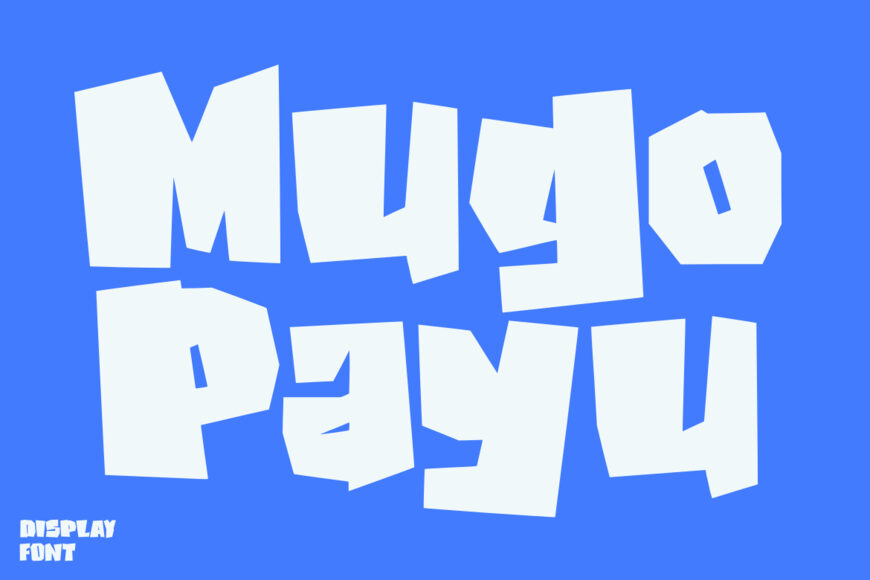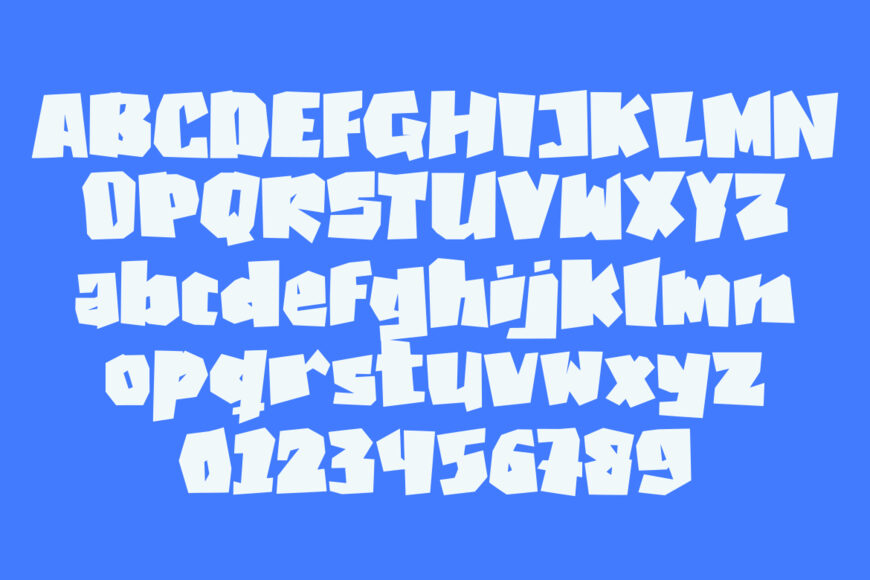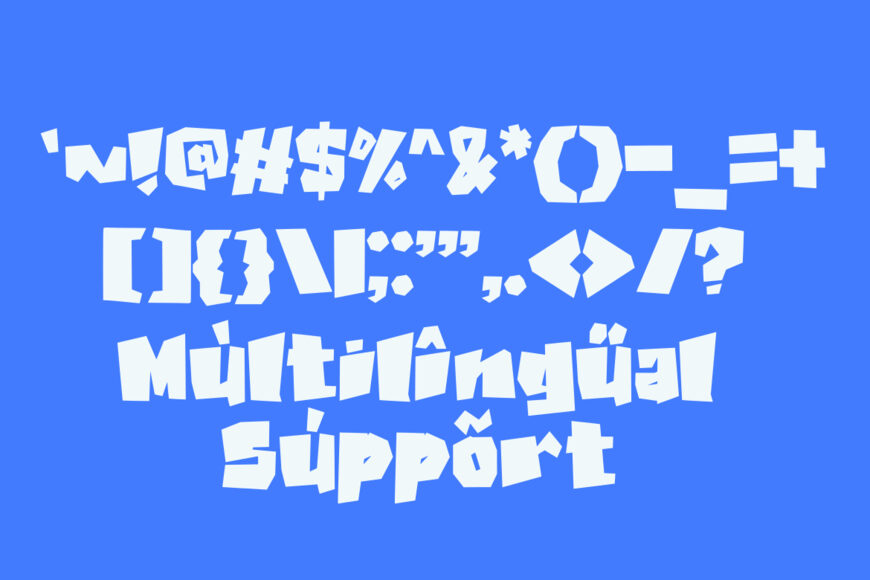
Mugo Payu is a bold, playful display font designed by GFRcreative. With its fun and friendly character, it’s well suited for kids’ projects, posters, logos, invitations, packaging, and creative branding.